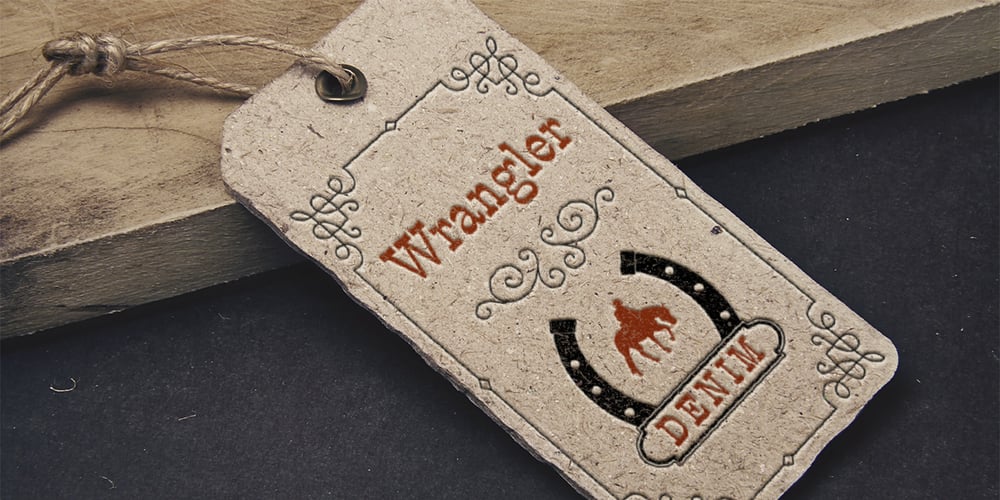
P.T. Barnum
P.T. Barnum font
P.T. Barnum Font Family was designed by published by Bitstream. P.T. Barnum contains 1 styles and family package options. One of the original nineteenth century designs, cut at Barnhart Brothers & Spindler in Chicago about 1880, passed on to us through ATF. Unlike most Circus types, the serifs of P.T. Barnum are bracketed.